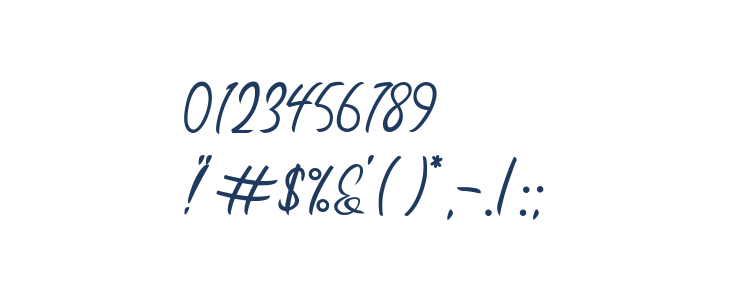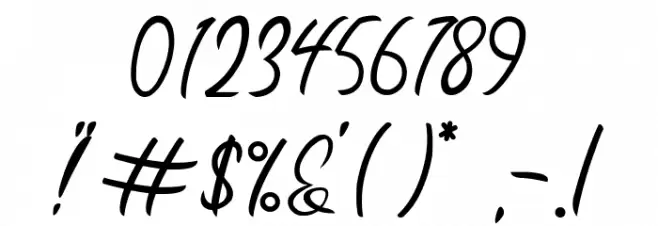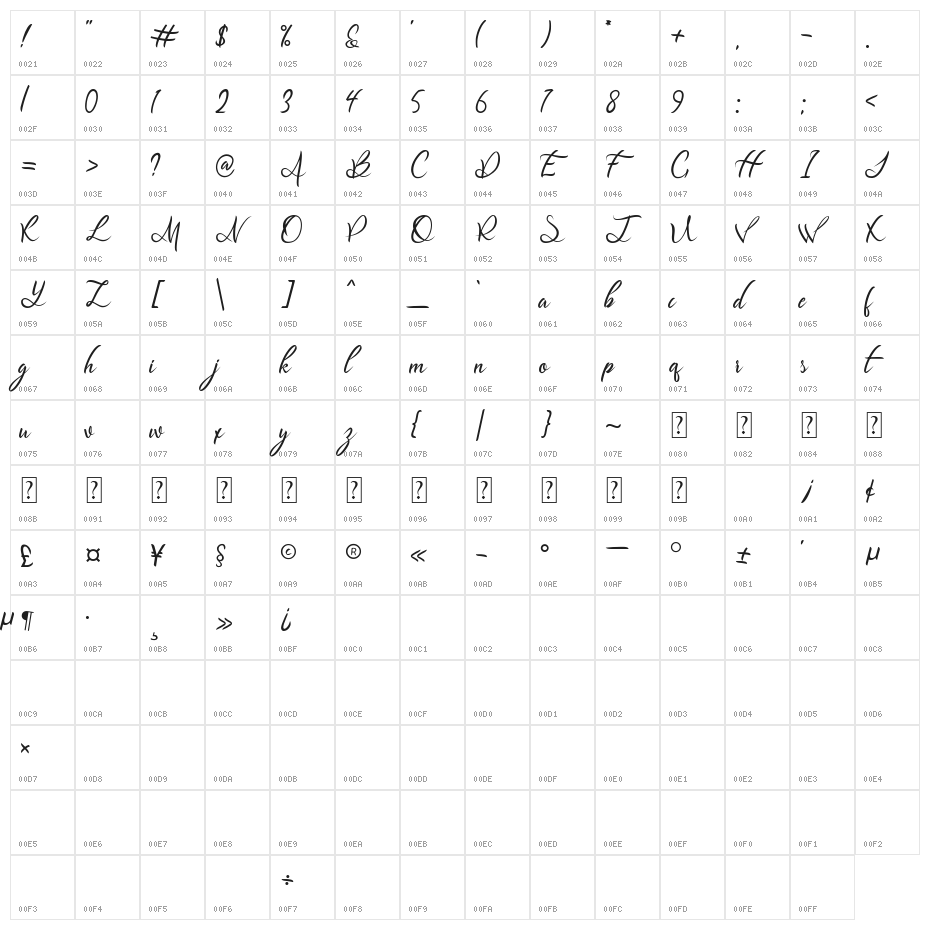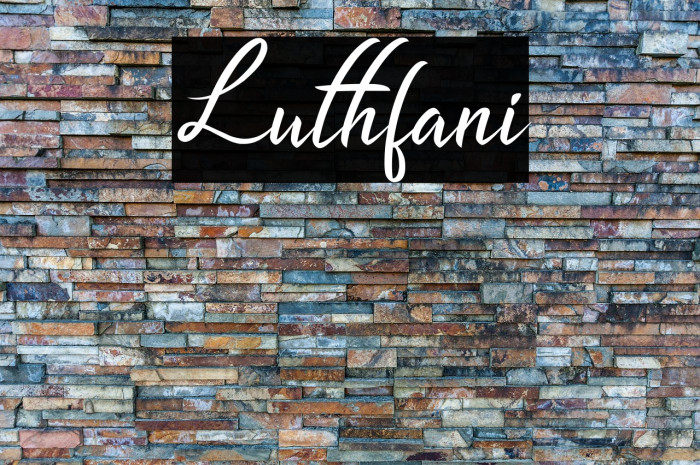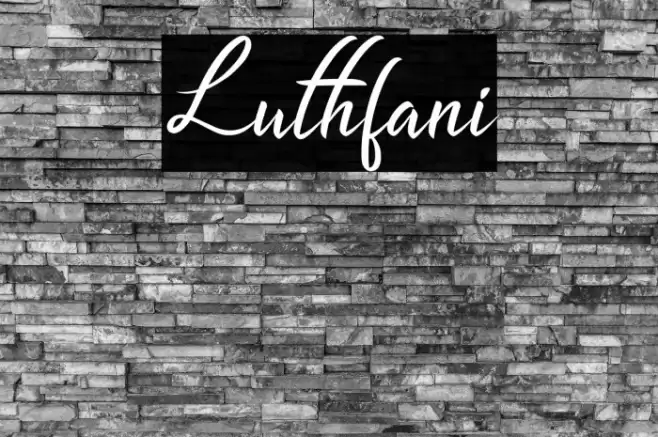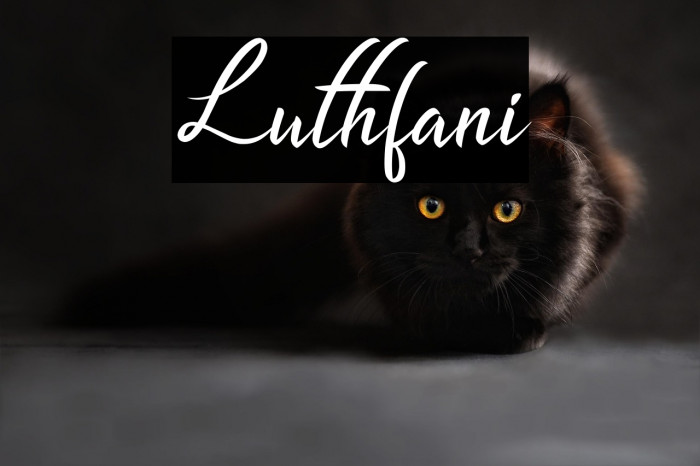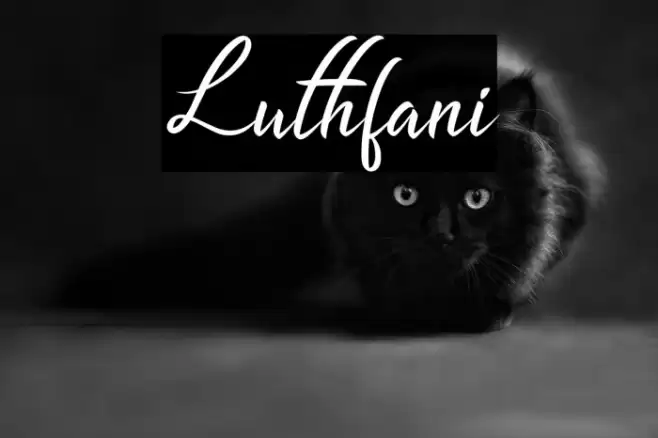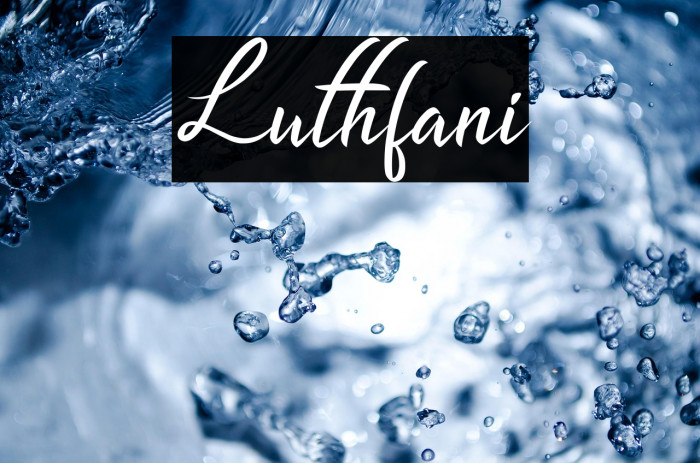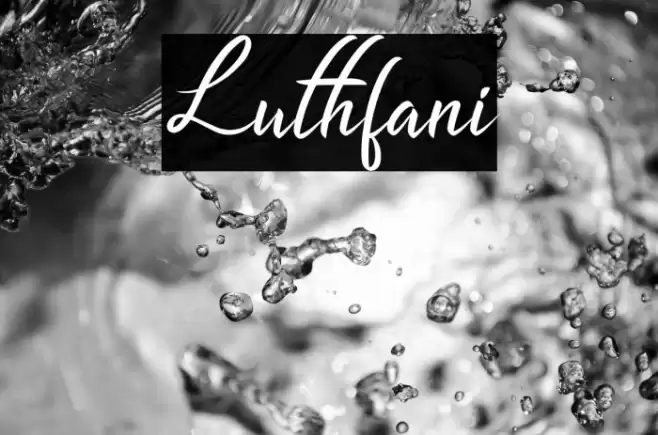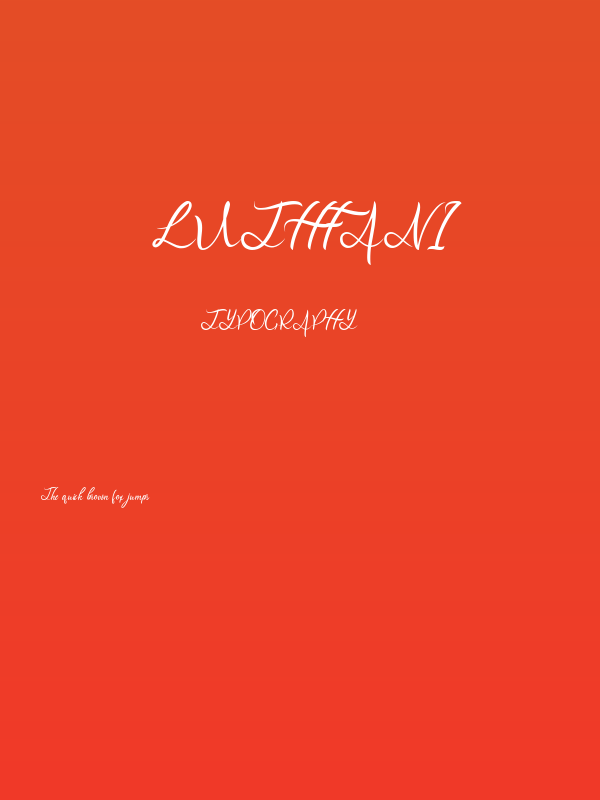
Luthfani Font
Luthfani Description
This elegant script font features a flowing, cursive style with smooth, connected strokes that exude sophistication and grace. The uppercase letters are characterized by their sweeping curves and loops, creating a sense of fluidity and movement. The lowercase letters maintain a consistent style, with gentle slants and rounded forms that enhance readability while preserving the font's artistic flair. Numerals are designed with a similar attention to detail, ensuring they blend seamlessly with the alphabetic characters. Special characters are thoughtfully crafted, maintaining the overall aesthetic of the font. This font is ideal for projects that require a touch of elegance and personal expression, such as wedding invitations, greeting cards, and branding materials.
| Overall Style | Elegant, Artistic |
| Use Case | Logos, Invitations, Decorative text |
| Proposed Projects | Ideal for wedding invitations, greeting cards, branding, and elegant stationery. |